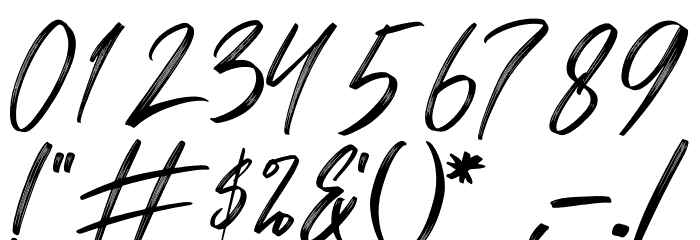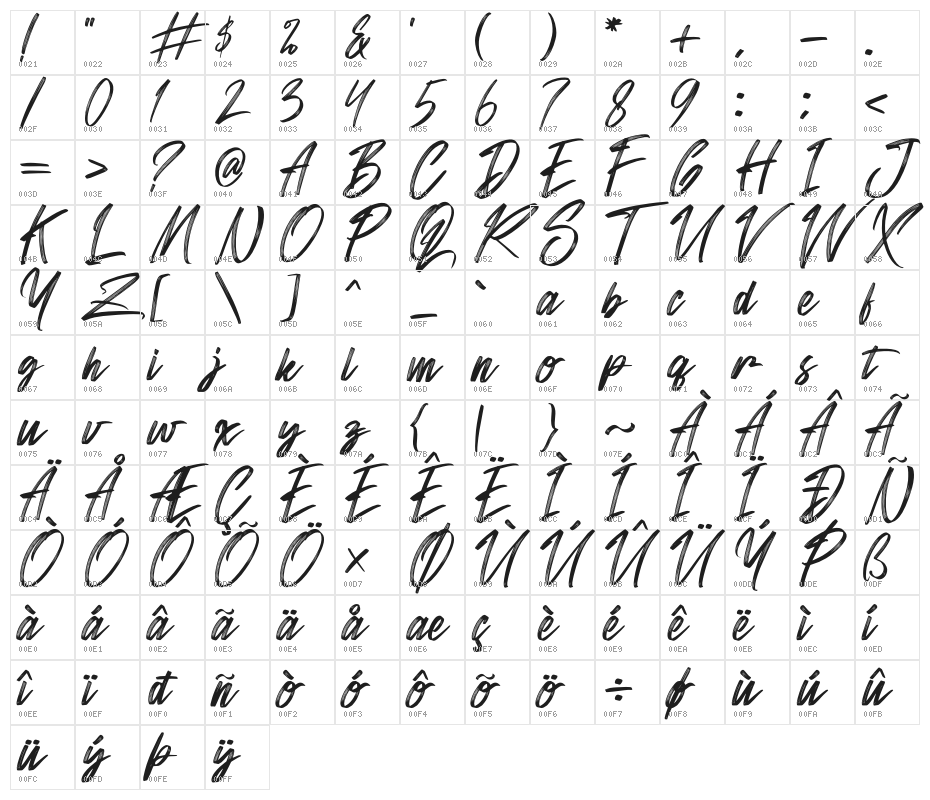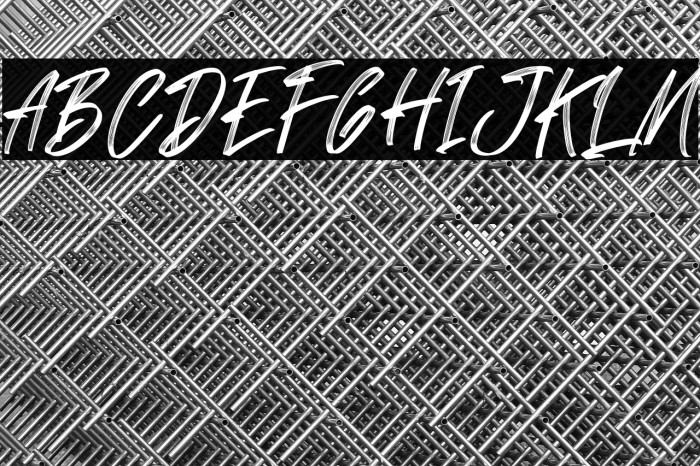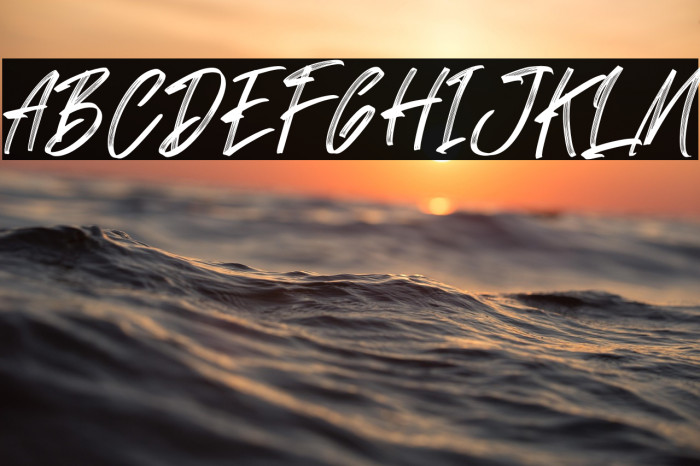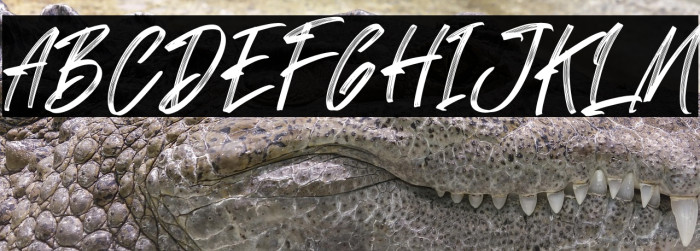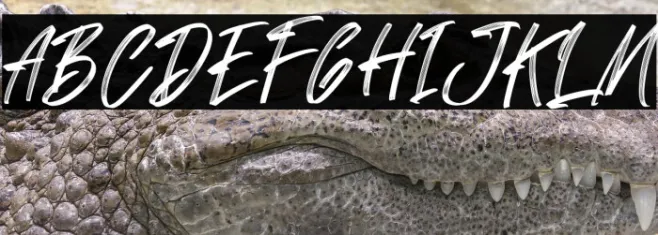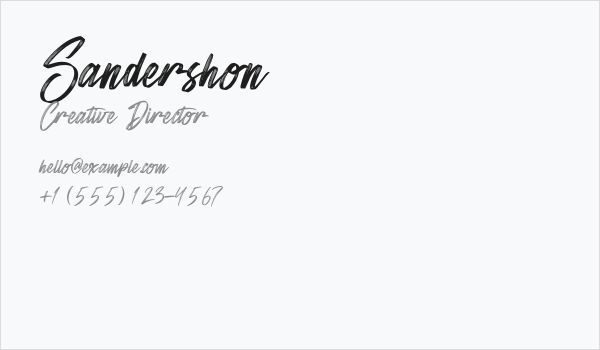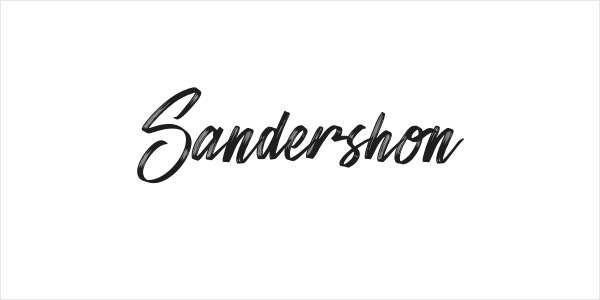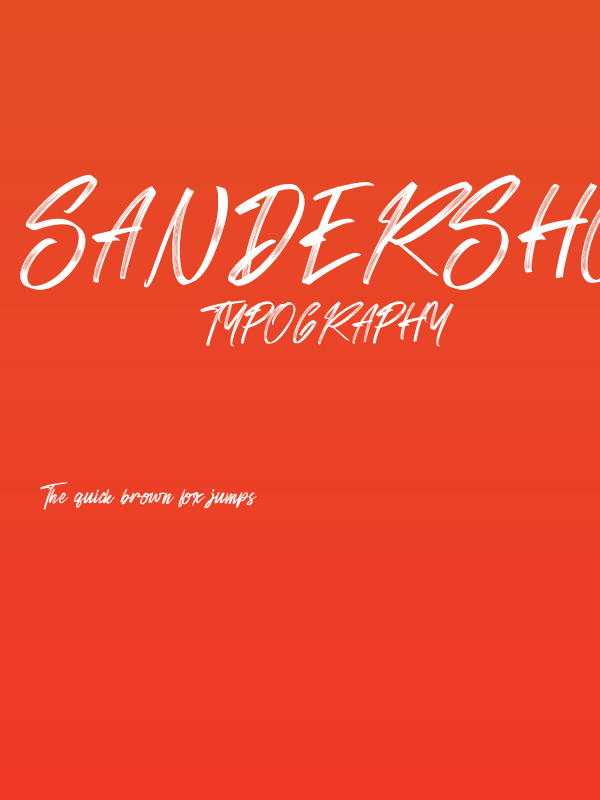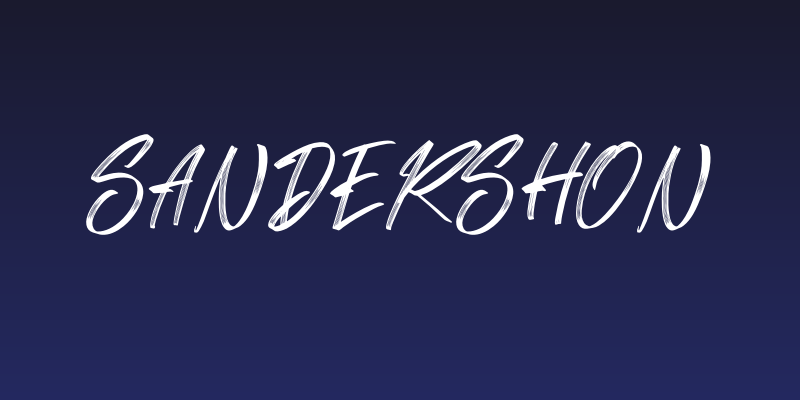
Sandershon Font
Sandershon Description
This font exudes a dynamic and expressive style, characterized by its bold, brush-like strokes that convey a sense of movement and energy. The uppercase letters are tall and slightly slanted, giving them a forward momentum, while the lowercase letters maintain a consistent flow with a slightly more compact form. The numbers and special characters follow the same energetic style, making them stand out with their unique flair. The overall appearance is both artistic and modern, suitable for projects that require a touch of creativity and boldness.
| Proposed Projects | Ideal for branding, posters, and creative design projects that require a bold and artistic touch. |